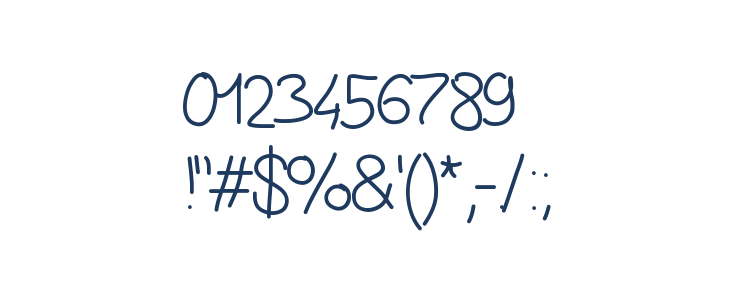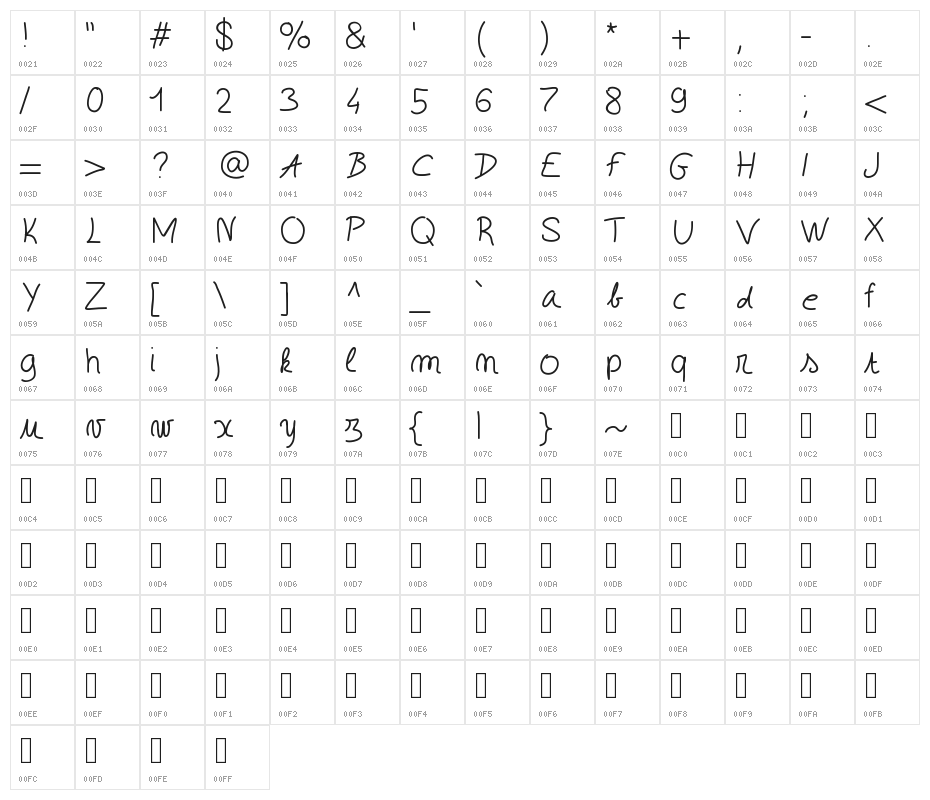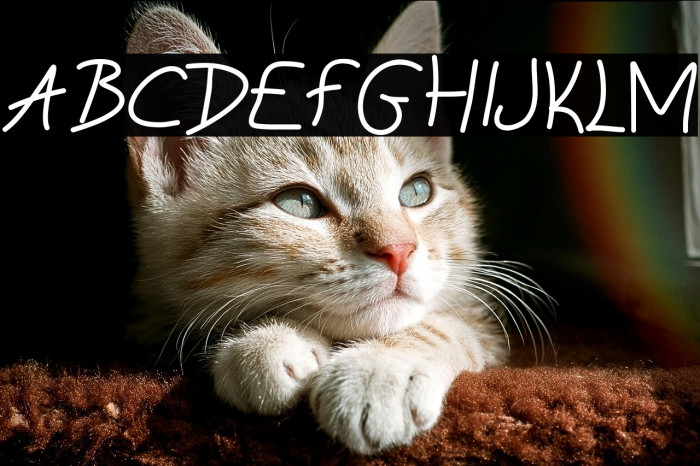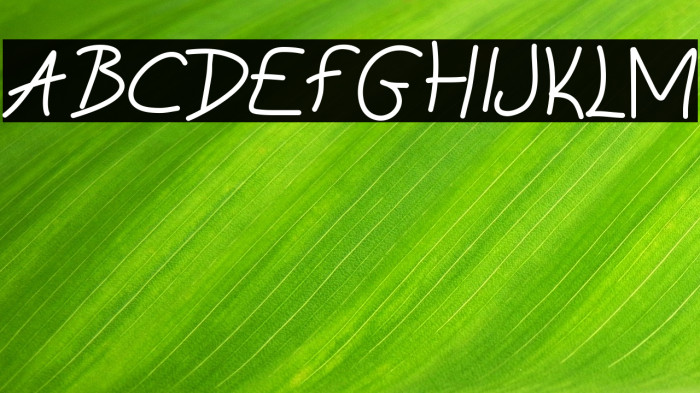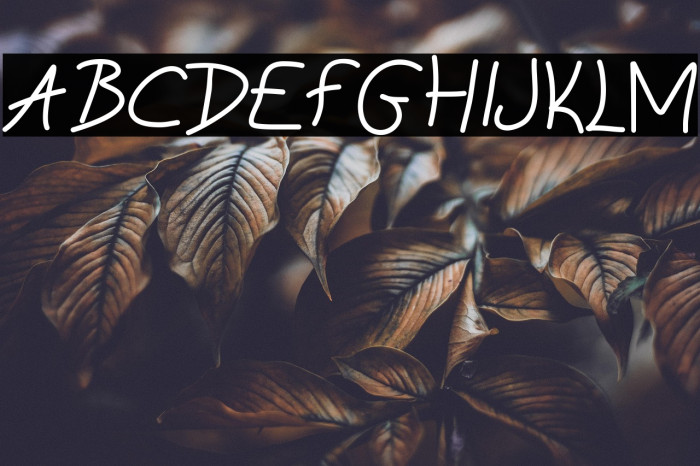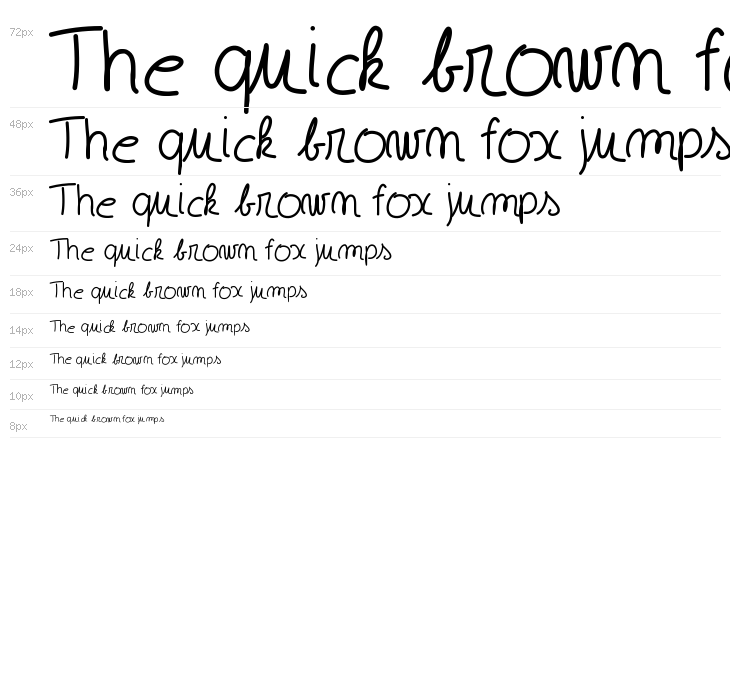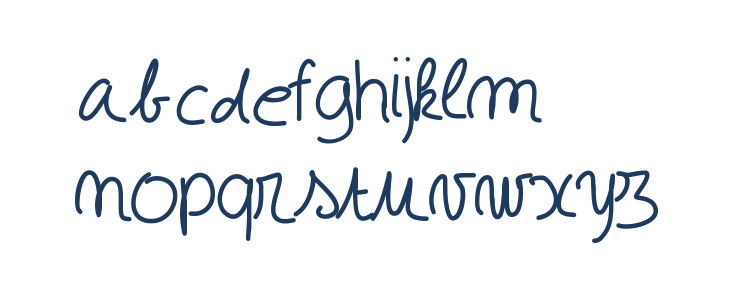
Enjoy Font
Enjoy Description
This font features a playful and casual handwritten style, characterized by its smooth, flowing lines and slightly irregular shapes. The uppercase letters are tall and slender, with a slight slant that adds a dynamic feel. The lowercase letters maintain a consistent style, with rounded forms and a friendly appearance. Numbers are bold and clear, making them easily readable. Special characters are designed to match the overall aesthetic, ensuring a cohesive look across all text elements. This font exudes a sense of informality and creativity, making it ideal for projects that require a personal touch.
| Overall Style | Casual |
| Use Case | Headlines, Logos, Invitations |
| Proposed Projects | Ideal for greeting cards, invitations, personal branding, and creative projects that require a personal touch. |